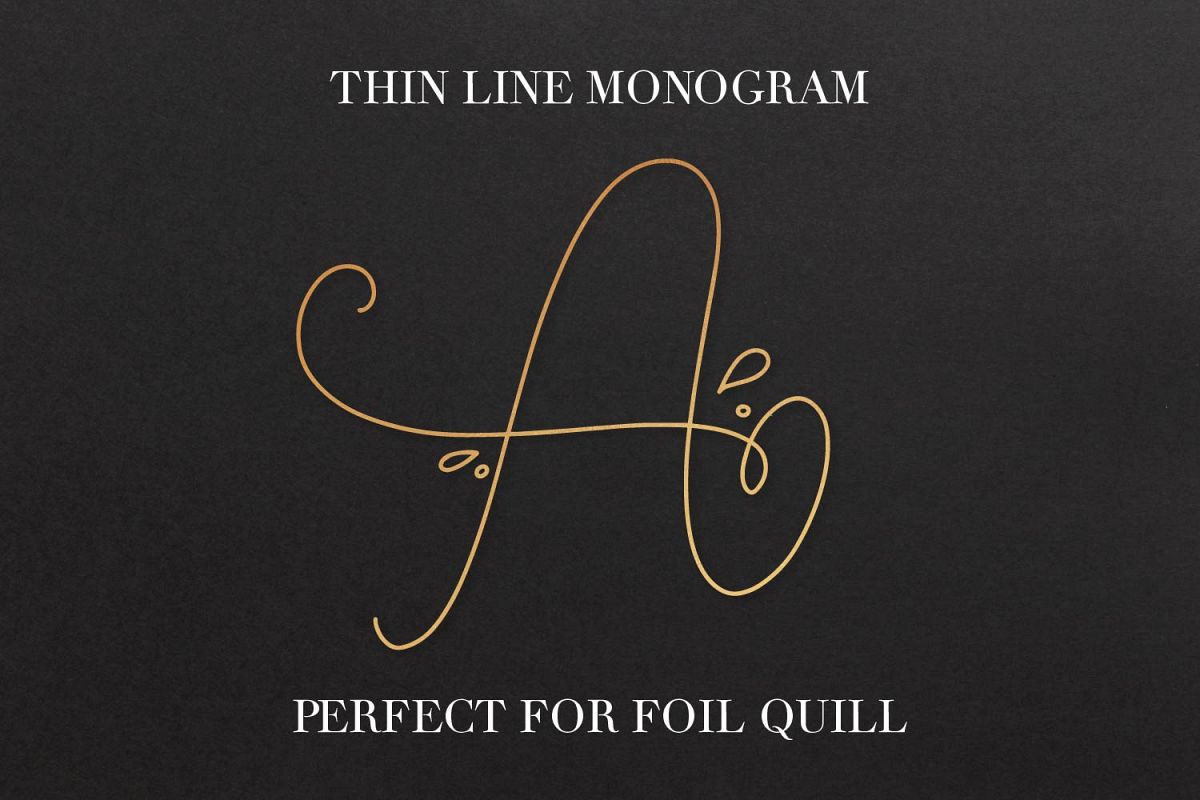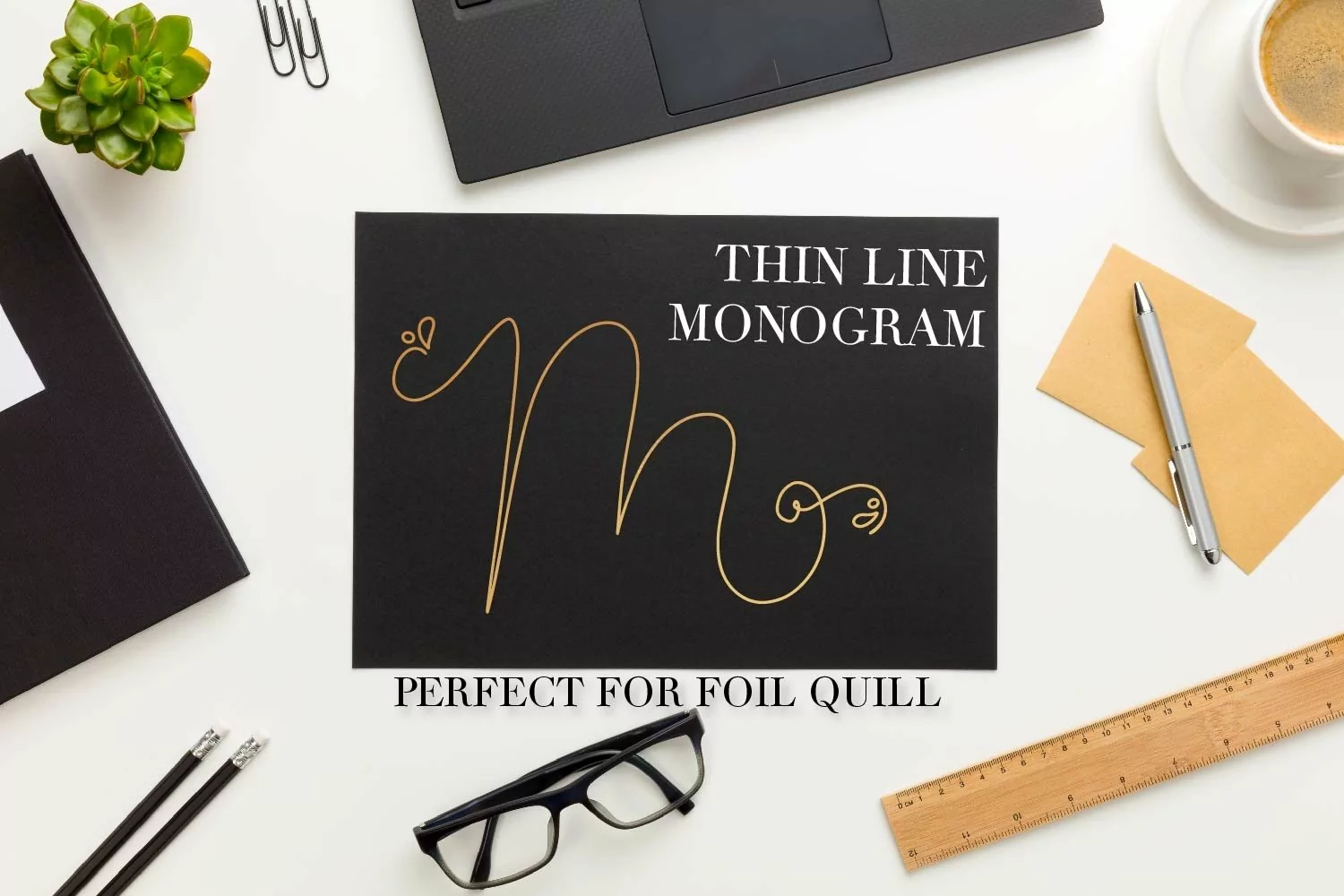
Thin Line Monogram - A Monogram Font Created For Foil Quill
While we worked to get the lines on this monogram at their thinest - larger sizes might require thicker quill types to get the desired effect. :)